Nostalgic Bliss: The 35 Best ’90s Fonts for an Instant Throwback!
The 90s period is marked by iconic fashion trends and attractive, bright, and bold graphic designs aimed at attracting the target audience. These forms of typography and fonts were specially formulated to capture attention.
The 1990s designs were initially taking off in terms of details, color, and motion. Living rooms worldwide were entertained by sitcoms like “Full House” and “Friends.” The millennial generation revolutionized the ’90s era.
The millennial generation can be termed bold, which made them come up with cool font designs, improving the ’80s approach. Product promotion was gaining popularity, which sparked mass adverting, taking graphics design a higher notch. Pop culture was fuelled by increased purchasing power due to economic stability in the ’80s.
Graphics designers have been using these remarkable designs to entice their audience. Let’s dive in and cover some of the best ’90s fonts that are also being used currently. They can be applied for professional and home projects.
1. Thunderstorm
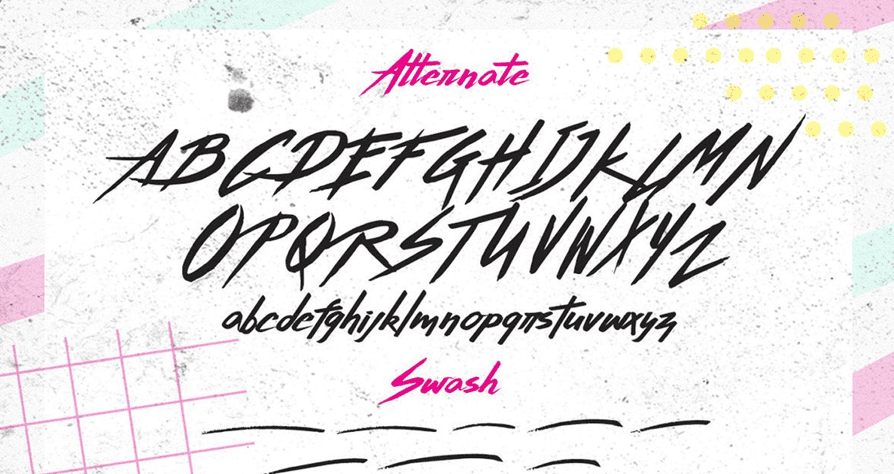
This design has captivating and edgy elements that make it stand out. It has a style and colors that will remind you of the “Fresh Prince of Bel-Air” and “Saved by the Bell.” Fonts from the ’90s incorporated geometrical shapes. This form of the face works excellently while creating a hand-painted style cut design. This lettering technique saw the creation of a disco-inspired design that was used for packaging. During the ’90s, graphic designers mainly used it on CDs sold in music outlet stores.
2. Moon Slayer
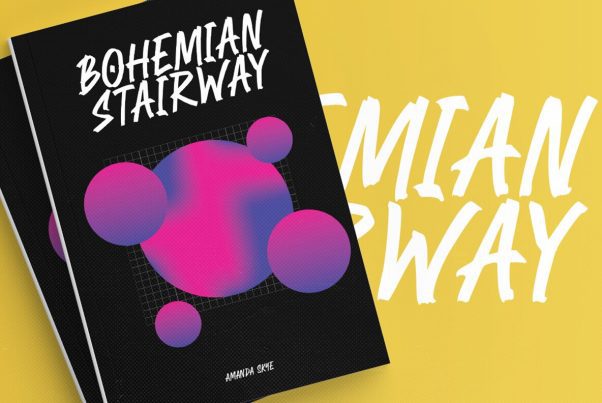
This font was used to write a diverse range of languages and is ideal for big displays aiming to capture attention.
The Moon Slayer design was popular among publishers and was used for book title covers. Consequently, a book would easily stand out on shelves with this handwritten font design.
3. Nineties Headliner
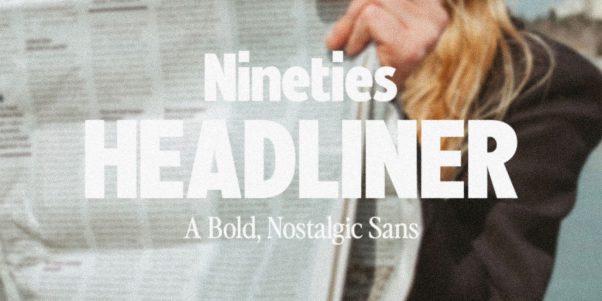
This is a great sans typeface that has a ’90s feel. As its title reckons, this font was primarily used to write newspaper headlines. Besides, it was seamlessly blended with the “Perfect Nineties” font. Even with no special characters, this font is iconic over the millennial innovation decade.
4. Astrovans
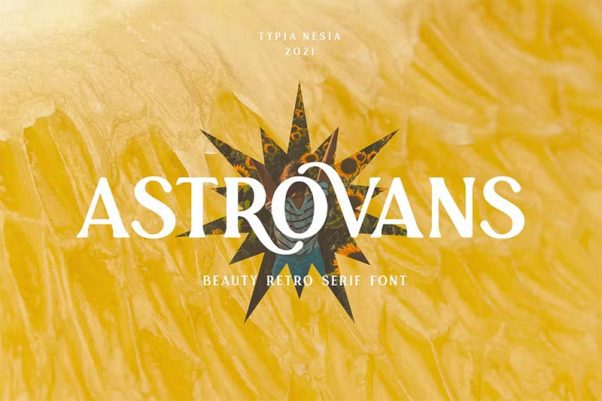
This all-caps font was used for display in the ’90s. The typeface can be applied in vintage graphic designs which require a feminine touch.
5. Renstoria
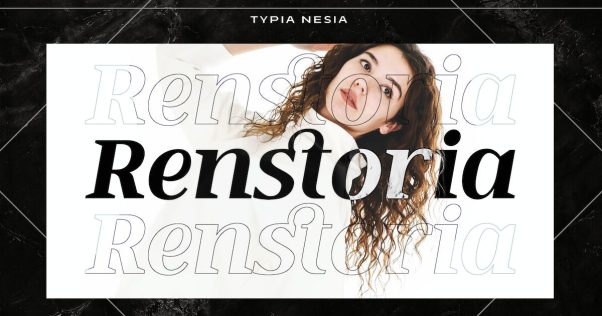
Renteria is a classy serif font used to decorate fashion events during gallery displays. Designers used it to promote art and fashion. It was applied in both print and screen to portray an iconic appearance. This lettering format is the foundation behind the boutique designs used on social media platforms.
6. Wasted Youth
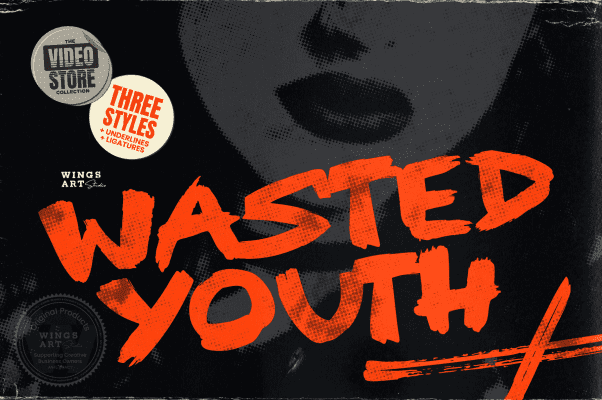
A bold and bright font has a brush technique writing. The Wasted Youth font was used to create headliners by ’90s bands. It is flexible and perfectly uses lower and upper case lettering. The brush strokes help graphic designers to create eye-catching color combinations. It can be applied to numerous projects because it is an open-type font.
7. Broncos
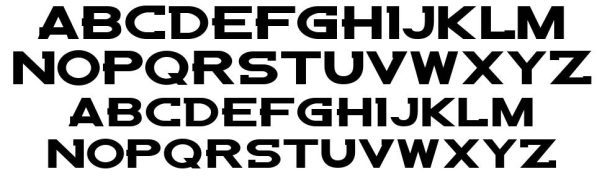
This ’90s typography can best be regarded as a punk-style font. It was used to construct attire designs and album covers. The font has a unique style because it embeds a reverse out, having block outlines. It shares similarities with the mockup, a printing press lettering format. Each letter has a distinct stroke size that makes it outstanding.
8. Wild Star Font Duo
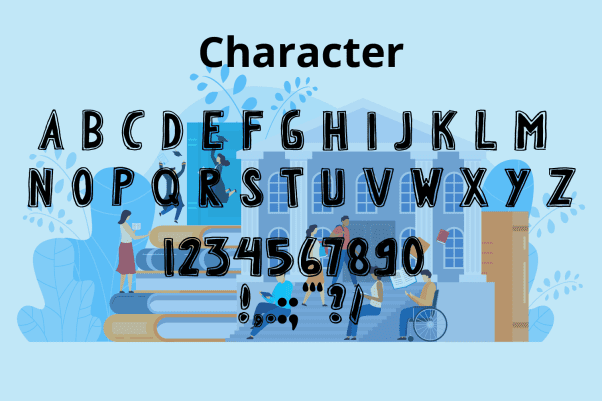
This ’90s font has a grunge and gothic approach. Its main graphical element is it allowed for two font styles to be used simultaneously. Graphic designers and marketers applied to brand equipment and clothes targeting the younger generations who preferred punk rock lifestyles.
9. Lacuna Marker Font
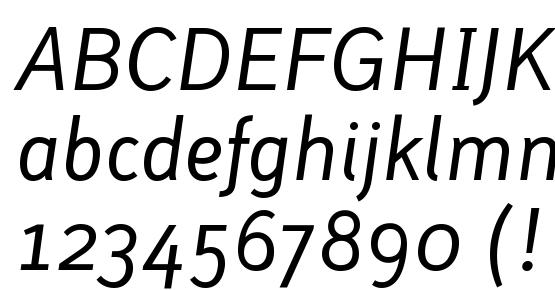
Lacuna Marker Font was the main theme for promoting skater culture and surfer wear. This hand-made brush lettering uses an italic font, allowing for a bold and creative display. Therefore, designers can develop a wholesome package with diverse uses.
10. Block Marys
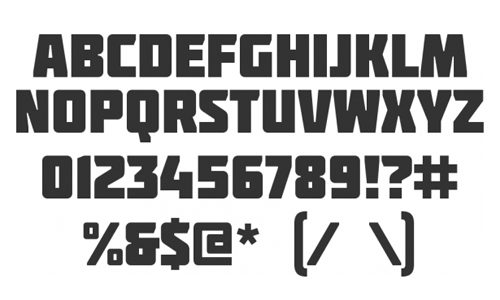
This font from the ’90s is a predecessor of Minecraft. Block Marys is inspired by the Nintendo Gameboy theme widespread among youths during this era. The lettering style is blocky and bold and can be used on a graph system. Designers in the gaming industry can use it to recreate an attractive look.
11. Memphis Type Collection
Memphis Type Collection is a font design that is created using varying shapes. It is a lettering technique that uses capital letters. Graphic designers can utilize it to come up with bold commercial displays. This iconic style can be used in vogue designs to replicate a bold decade.
12. Rodagear Script
Do you want to create a neon sign or script typeface design? Rodagear script theme font is there for you. It is a perfect choice that can be applied using diverse shading elements to imitate neon light changes. This 90s theme format can be used on many household and commercial projects.
In a Nutshell
The final verdict is that; the 35 ’90s fonts spelled out above prove that graphic designers have numerous options which they can use for inspiration. The ’90s era is marked by remarkable innovation in graphics design. The 35 innovative typefaces listed here epitomize creativity in modern advertisements. Besides, the punk way of life is an integral part of the American culture. These fonts helped market products and services globally. Use them now to create masterworks.